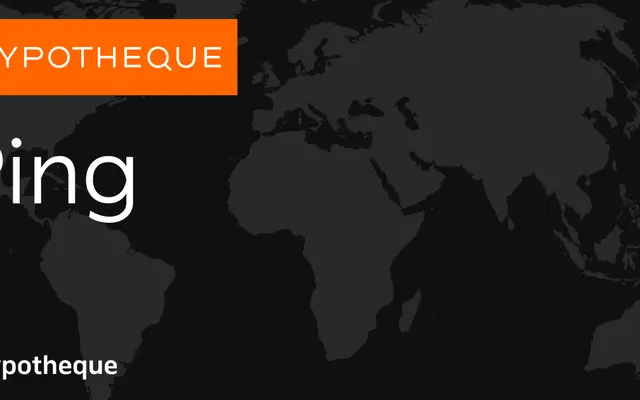
A geometric sans from Typotheque offered in nine weights with italics, alongside a rounded variant and a variable font version.
Available in two subfamilies, Ping and Ping Round, each running from Hairline to Black with matching italics across eighteen static styles per family. The rounded variant softens the geometric skeleton for applications where a friendlier tone is needed. A variable font is also available, covering the full weight range in a single file.
Ping is a geometric sans-serif with a rounded variant (Ping Round), suggesting clean, circular construction typical of geometric grotesques. The rounded subfamily confirms the underlying geometric structure.